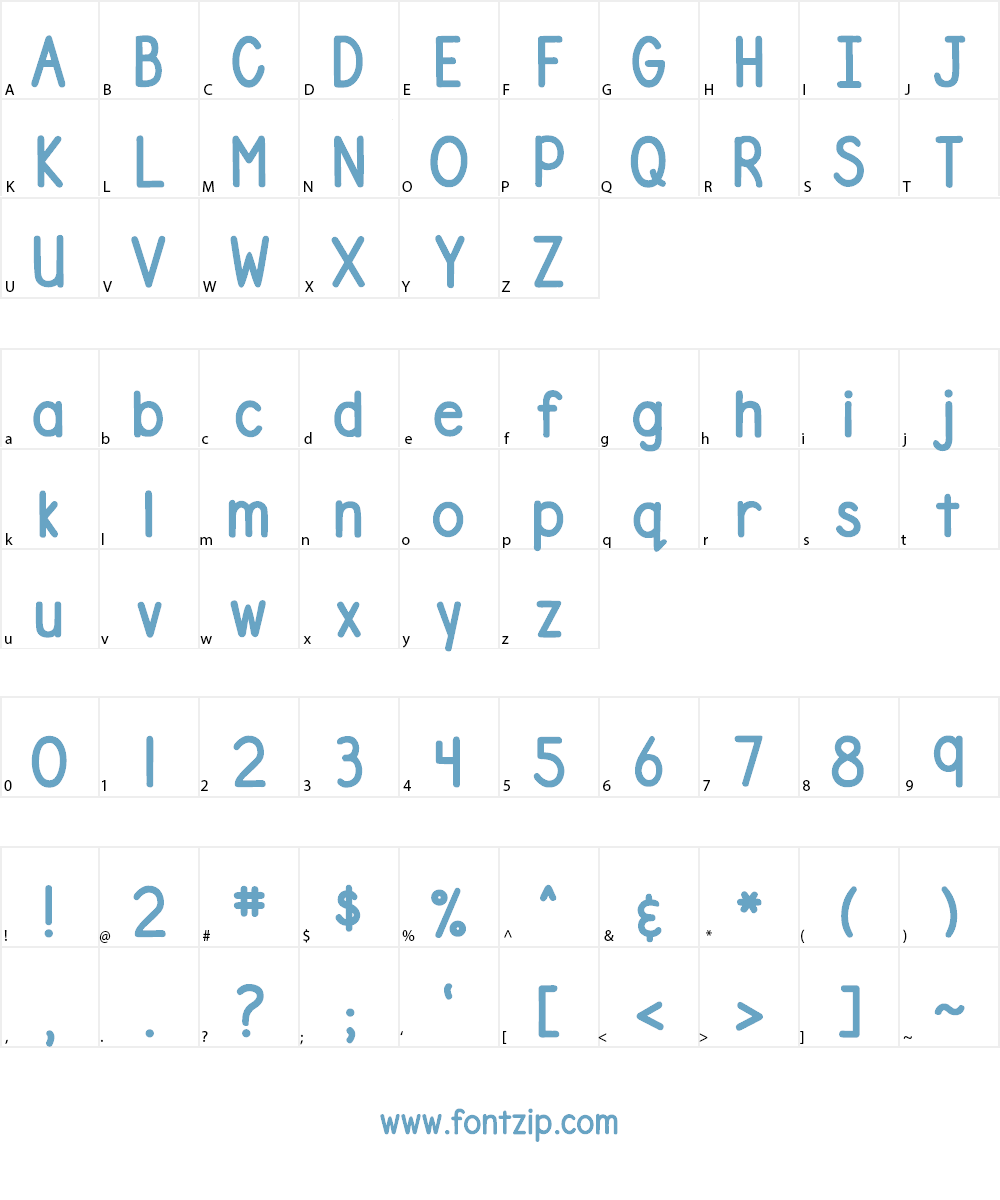
A uniform sans-serif font in both regular and bold that is great for easy reading passages and texts. It also includes 2 standardized test bubbles (and a standardized test bubble font is coming next!) along with European language characters.